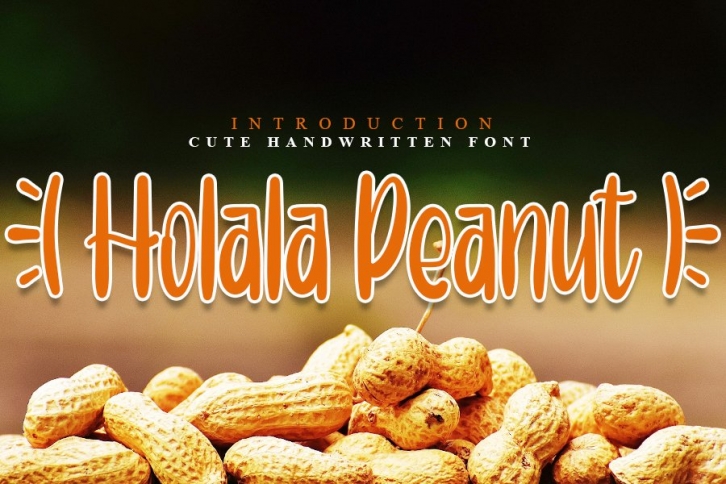
Holala Peanut is a gorgeous font that was realeased on December 17, 2020. The font can be used in many style contexts and design environments. Perfect for invitations, magazines, websites, logos, and more! It was designed by InermediaSTUDIO and the file size is 17.30 MB. Thanks for checking out this font!